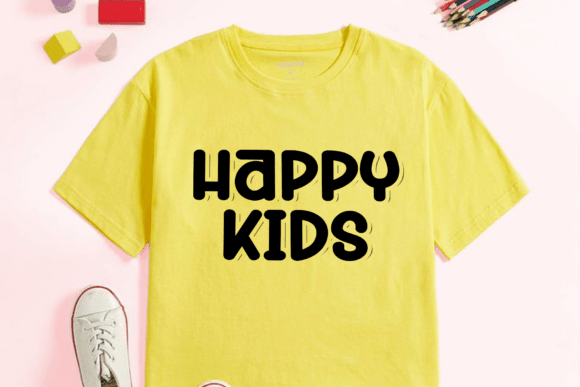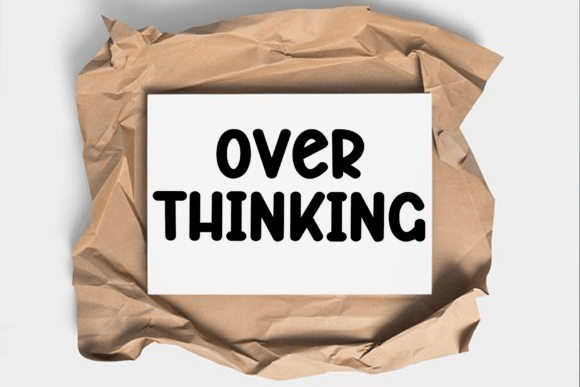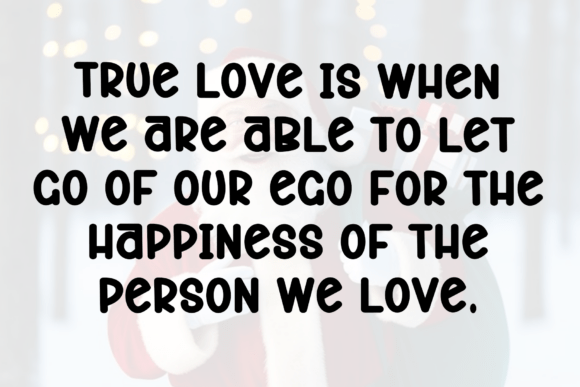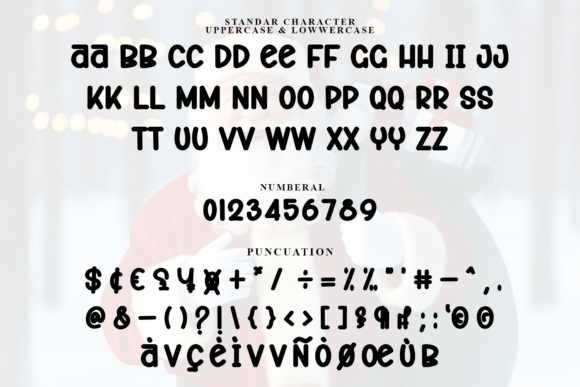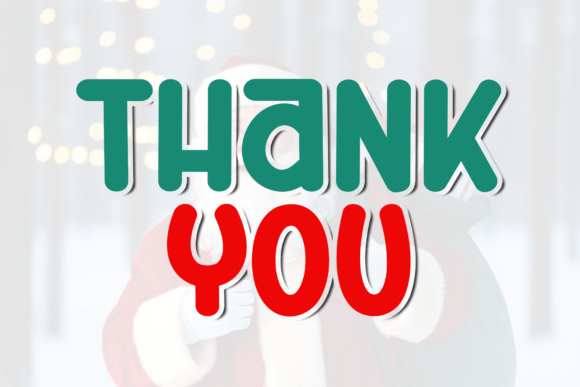
Introducing Happy Santa Font: The Perfect Blend of Modern Simplicity and Playful Charm
Are you tired of using the same old fonts for your design projects? Look no further than Happy Santa Font, a casual display font that brings a fresh and friendly touch to any project. With its modern simplicity, playful vibe, and versatile character, Happy Santa Font is perfect for designers and crafters looking to add a unique and eye-catching appeal to their work.
What Makes Happy Santa Font So Special?
Happy Santa Font is a carefully crafted font that blends clean shapes, soft edges, and well-balanced letterforms to create a charming and approachable design. Its relaxed and casual feel makes it perfect for a wide range of applications, from posters and branding to packaging and social media graphics. Whether you’re looking to create a bold statement or a subtle impression, Happy Santa Font delivers both readability and personality.
Key Features of Happy Santa Font
- Modern Simplicity: Happy Santa Font boasts a clean and minimalist design that is perfect for modern designs.
- Playful Vibe: The font’s soft edges and rounded shapes give it a playful and approachable feel.
- Well-Balanced Letterforms: Each letterform is carefully crafted to ensure clarity and style.
- Versatile Character: Happy Santa Font is perfect for a wide range of applications, from posters to social media graphics.
- Eye-Catching Appeal: The font’s unique design makes it stand out from the crowd and grab attention.
Why Choose Happy Santa Font?
There are many fonts available, but Happy Santa Font stands out from the rest due to its unique blend of modern simplicity and playful charm. Here are just a few reasons why designers and crafters love Happy Santa Font:
- Easy to Read: Despite its playful design, Happy Santa Font remains clear and easy to read, making it perfect for body text and headings.
- Highly Versatile: The font’s versatility makes it suitable for a wide range of projects, from fun and playful designs to more serious and professional applications.
- Unique Design: Happy Santa Font’s unique design makes it a great way to add personality and style to your projects.
How to Use Happy Santa Font in Your Designs
Happy Santa Font is perfect for a wide range of design projects, including:
- Posters: Use Happy Santa Font to create eye-catching posters that grab attention and convey your message.
- Branding: Add a fresh and friendly touch to your brand with Happy Santa Font, perfect for logos, business cards, and more.
- Packaging: Use Happy Santa Font to create unique and eye-catching packaging that stands out on store shelves.
- Social Media Graphics: Add a playful touch to your social media graphics with Happy Santa Font, perfect for Facebook posts, Instagram stories, and more.
Tips and Tricks for Getting the Most Out of Happy Santa Font
Here are a few tips and tricks for getting the most out of Happy Santa Font:
- Experiment with Colors: Happy Santa Font looks great in a wide range of colors, so don’t be afraid to experiment and find the perfect hue for your design.
- Mix and Match: Combine Happy Santa Font with other fonts to create a unique and eye-catching design.
- Play with Size: Happy Santa Font looks great in a wide range of sizes, from small and subtle to large and bold.
In conclusion, Happy Santa Font is a unique and versatile font that is perfect for designers and crafters looking to add a fresh and friendly touch to their projects. With its modern simplicity, playful vibe, and eye-catching appeal, Happy Santa Font delivers both readability and personality. Whether you’re creating posters, branding, packaging, or social media graphics, Happy Santa Font is the perfect choice.